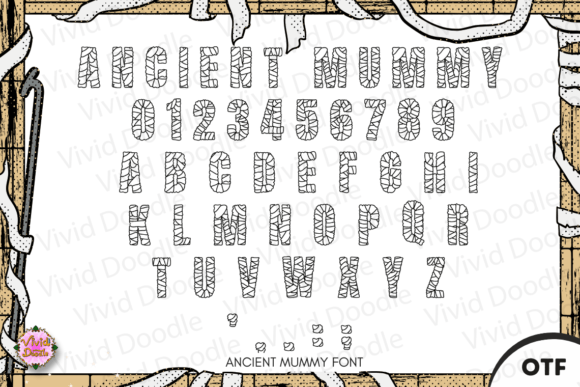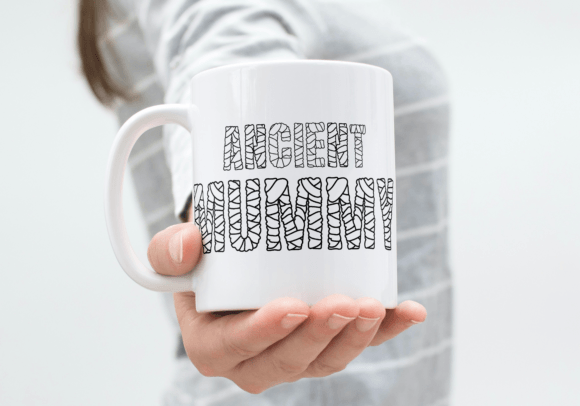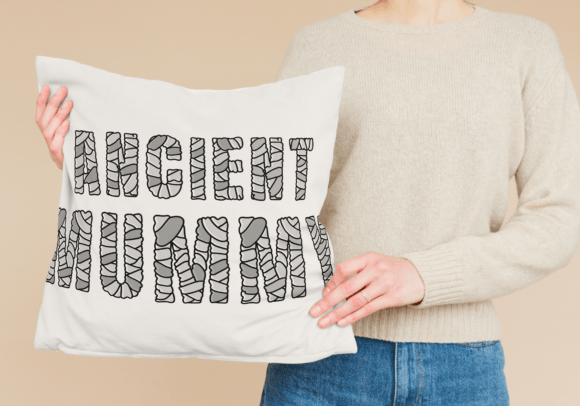
Unwrapping the Ancient Mummies Font: A Spine-Chilling Addition to Your Design Toolkit
I’ll never forget the Halloween project that pushed me to search for the perfect font. My client needed an invitation design that would send shivers down the spines of their partygoers. As I scrolled through font after font, nothing seemed to capture the essence of the spooky season. That was until I stumbled upon the Ancient Mummies font—a typeface so mysteriously captivating that it instantly became the star of my design.
A First Impression: What Makes the Ancient Mummies Font Stand Out
The Ancient Mummies font is an exquisitely crafted typeface that embodies the mystique of ancient mummies, bringing a hauntingly beautiful aesthetic to any design project. Its unique blend of ancient allure and modern twist makes it a versatile choice for designers, crafters, and creative hobbyists looking to add a touch of the supernatural to their work.
Honest Review: The Good, the Great, and the Quirks
- ✨ Intricate Design: Each letter is meticulously designed to evoke the enigmatic allure of ancient mummies.
- ✅ Versatility: Perfect for a wide range of projects, from spooky decorations and eerie party invitations to horror-themed designs.
- 🔥 Visual Impact: The font’s unique aesthetic creates a visually captivating and hauntingly atmospheric experience.
⚠️ While the Ancient Mummies font is incredibly versatile, it’s worth noting that its highly stylized nature might make it less suitable for projects requiring a more traditional or formal look. Additionally, some of the more intricate details may not render as clearly at smaller font sizes.
🤔 One minor quirk is that the font’s OpenType features and glyphs might require a bit of experimentation to master, especially for users unfamiliar with advanced typography.
The Story Behind the Ancient Mummies Font
The Ancient Mummies font was inspired by the mysterious allure of ancient Egyptian tombs and the timeless fascination with the afterlife. Its creator aimed to capture the essence of this ancient civilization and infuse it with a modern twist, making it a unique addition to any design project. The font’s intricate details and hauntingly beautiful aesthetic are a testament to the enduring appeal of ancient cultures and the power of typography to evoke emotion and atmosphere.
| Font Name | Ancient Mummy Font |
| Author | VividDoodle |
Q: What makes the Ancient Mummies font unique?
A: The Ancient Mummies font is unique due to its intricate design, which captures the mysterious allure of ancient mummies and brings a hauntingly beautiful aesthetic to any design project.
Q: Does the Ancient Mummies font support OpenType features?
A: Yes, the Ancient Mummies font supports OpenType features, allowing users to access a range of glyphs, stylistic alternates, and other advanced typographic features to enhance their designs.